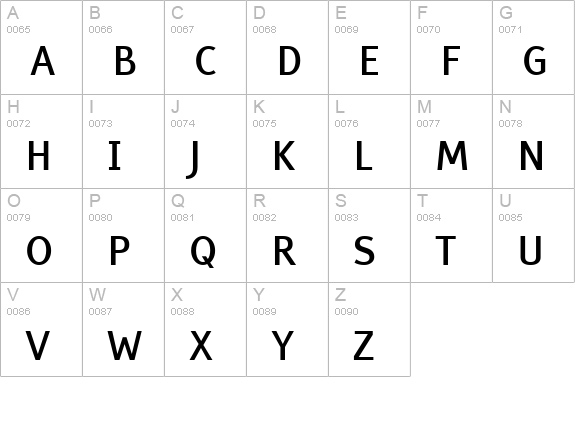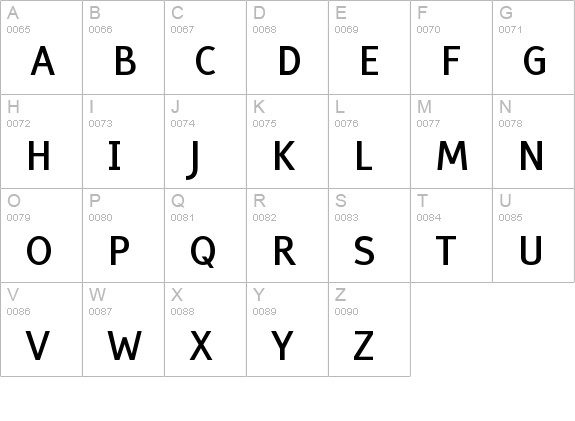
Tiresias PCfont Font Details
Tiresias PCfont is a visually stunning font that combines elegance and functionality. Designed with utmost precision and attention to detail, this typeface is perfect for a wide range of applications, from professional documents to creative projects. What sets Tiresias PCfont apart is not only its striking appearance but also its accessibility. This font is freely available to download at FontsMarket.com, making it an ideal choice for individuals and businesses alike. Whether you're a graphic designer looking to add a touch of sophistication to your designs or a student in need of a stylish font for your presentations, Tiresias PCfont has got you covered. With its clean lines and balanced proportions, Tiresias PCfont offers excellent legibility in both print and digital mediums. The carefully crafted letterforms ensure that each character stands out on its own while maintaining a harmonious overall composition. This makes Tiresias PCfont a versatile option for any project, whether it's a website, brochure, or even a logo design. Moreover, Tiresias PCfont is highly adaptable, with various weights and styles available. From the bold and impactful to the subtle and understated, this font has the flexibility to suit any design aesthetic. Its extensive character set includes punctuation, numerals, and even special characters, allowing you to express your creativity without limitations. Furthermore, Tiresias PCfont is designed with user experience in mind. Its smooth curves and consistent spacing ensure effortless reading, even in lengthy paragraphs. This makes it an excellent choice for body text or lengthy articles, where readability is paramount. In conclusion, Tiresias PCfont is a remarkable font that strikes the perfect balance between beauty and practicality. And the best part? It's freely available to download at FontsMarket.com. So why wait? Elevate your designs and projects with Tiresias PCfont and experience the power of this exceptional font firsthand.